Looking for free Cricut Christmas fonts? Christmas time is here and these free Christmas fonts are the perfect addition to any holiday craft project!
Use these fonts to make matching t-shirts for family photos, custom ornaments for your Christmas tree, DIY Christmas party invitations, framed signs for stunning holiday decor and so much more!
No matter what craft project you are working on, these festive but easy to use Christmas fonts will be a breeze to use with your Cricut or any cutting machine!
Farmhouse Christmas
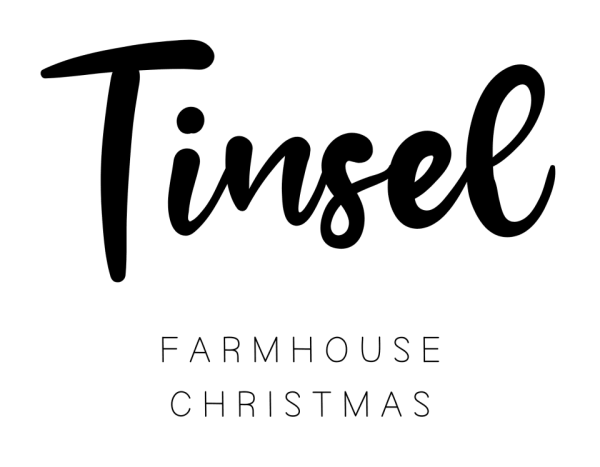
Bold and elegant, the Farmhouse Christmas font is perfect to use for Christmas party invitations and signage. This font will make any craft project merry and bright!
Christmas Holiday
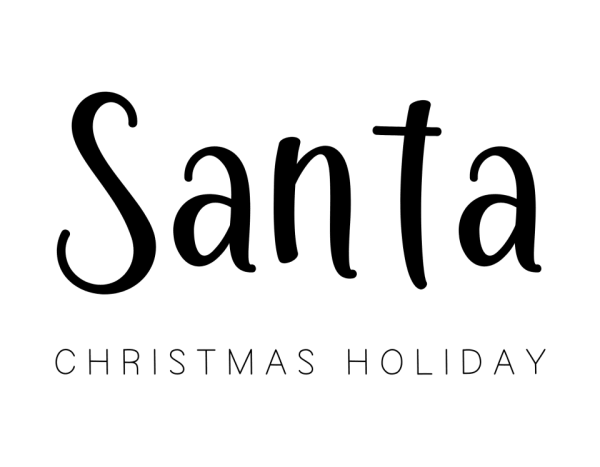
The name says it all! This Christmas Holiday font is so fun and whimsical. Use this font for a Cookies for Santa plate, you’ll be sure to thank me later!
Good Grace
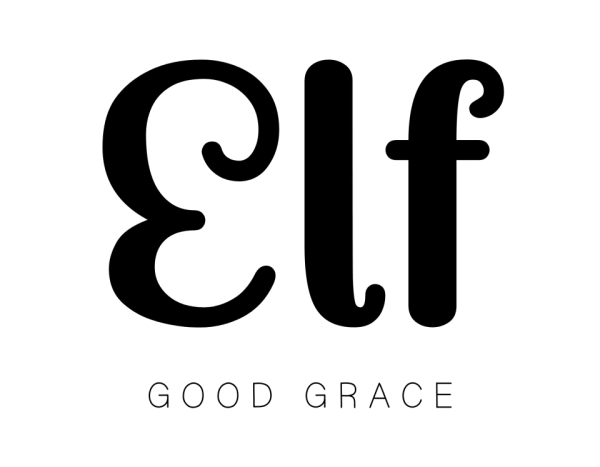
This handwritten font is beyond adorable! The Good Grace font is super festive and the cute curls in the font reminds me of elf shoes.
Christmas Shine
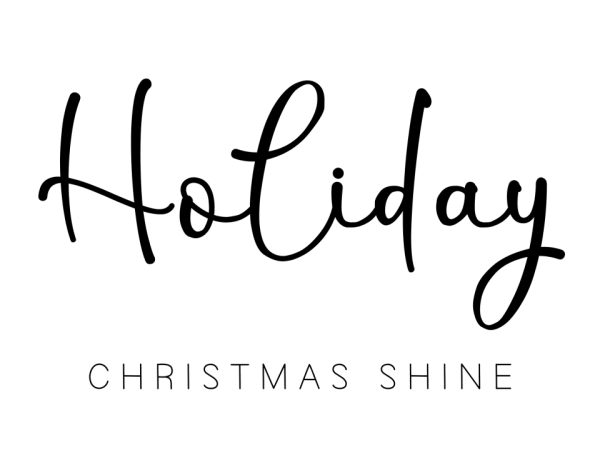
Classy and delicate, this Christmas Shine font will bring a touch of elegance to any winter craft project. Perfect for Christmas ornaments and holiday postcards to send to family and friends.